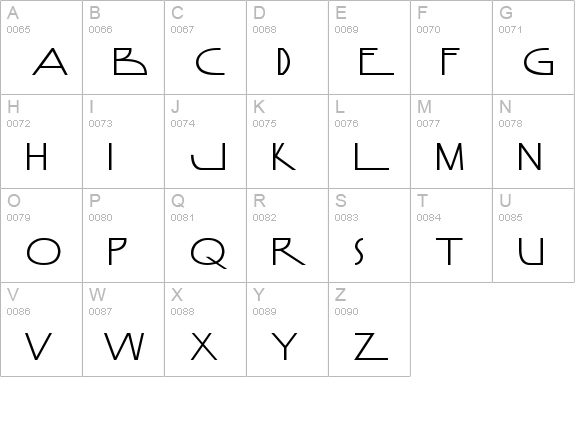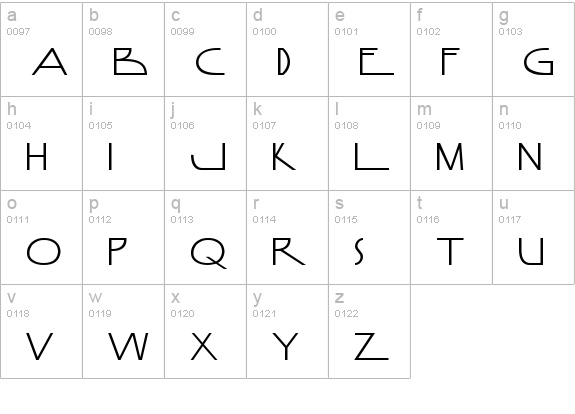
Anamorphosée Normal Font Details
Anamorphosée Normal is the standard, neutral variant in the Anamorphosée typeface family \xE2\x80\x94 well suited to general body text, paragraphs, and standard typographic work.
Anamorphosée Normal font is a beautifully crafted typeface that exudes elegance and sophistication. Its sleek lines and modern design make it perfect for a wide range of projects, from branding to editorial design. The versatility of this font allows it to be used in both print and digital applications, ensuring that your message will always be communicated clearly and effectively. What sets Anamorphosée Normal font apart is its unique ability to captivate and engage the reader, making it a standout choice for any designer looking to make a lasting impression. Whether you're working on a poster, website, or logo, this font is sure to elevate your design to the next level. Best of all, Anamorphosée Normal font is available for free download at FontsMarket.com, making it easily accessible to designers of all skill levels. Don't miss out on the opportunity to add this stunning font to your collection and take your designs to new heights.